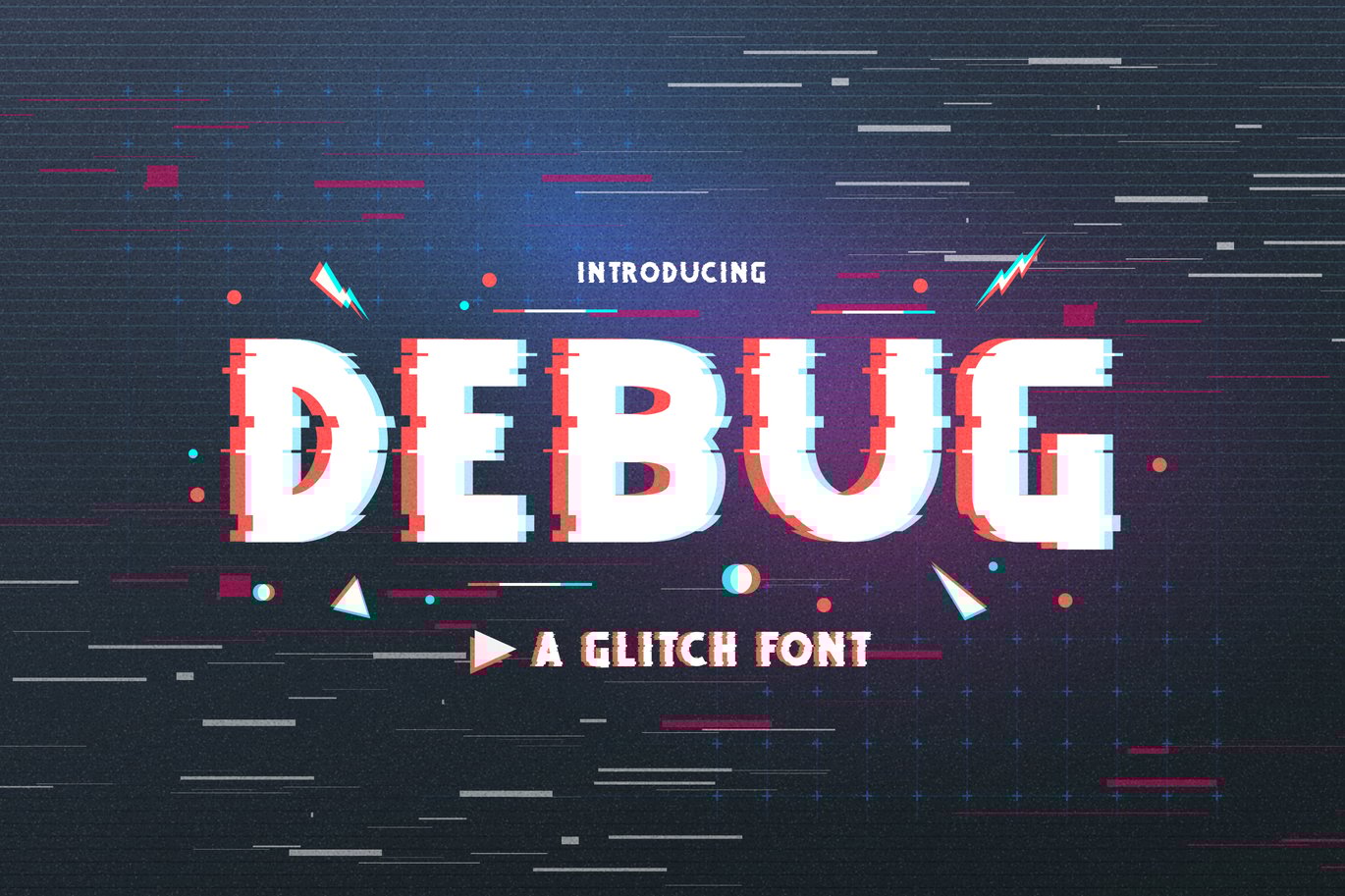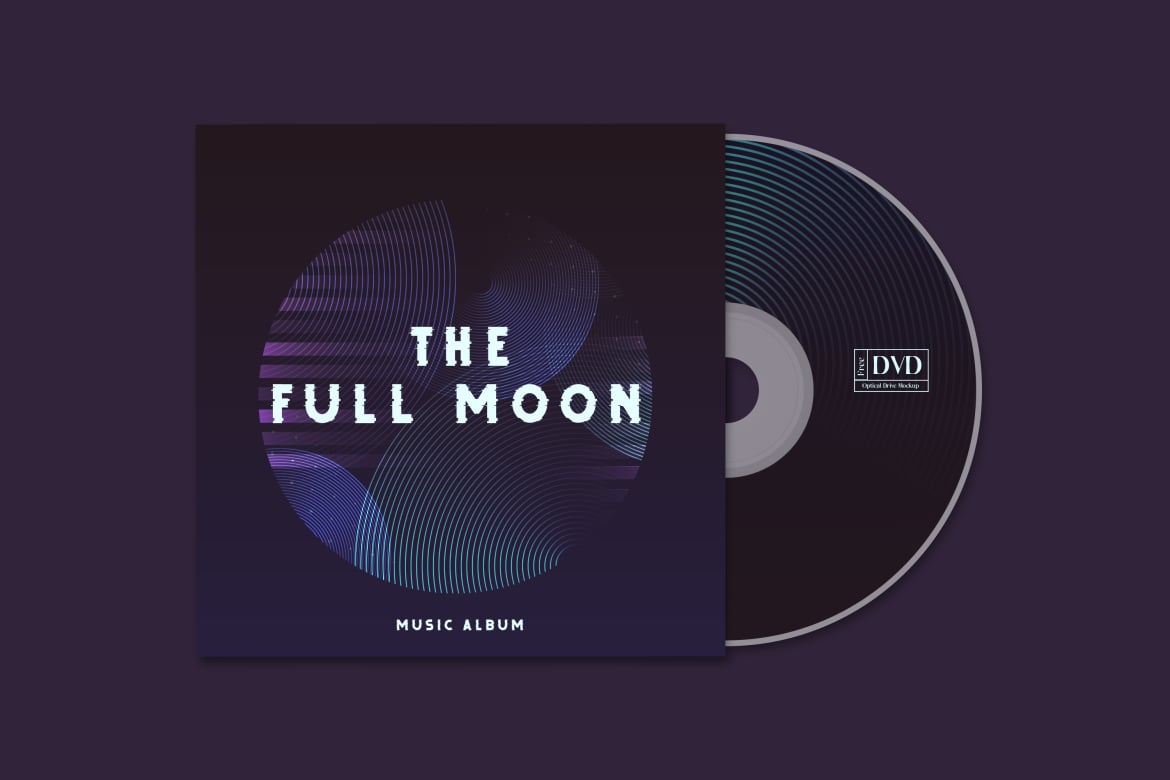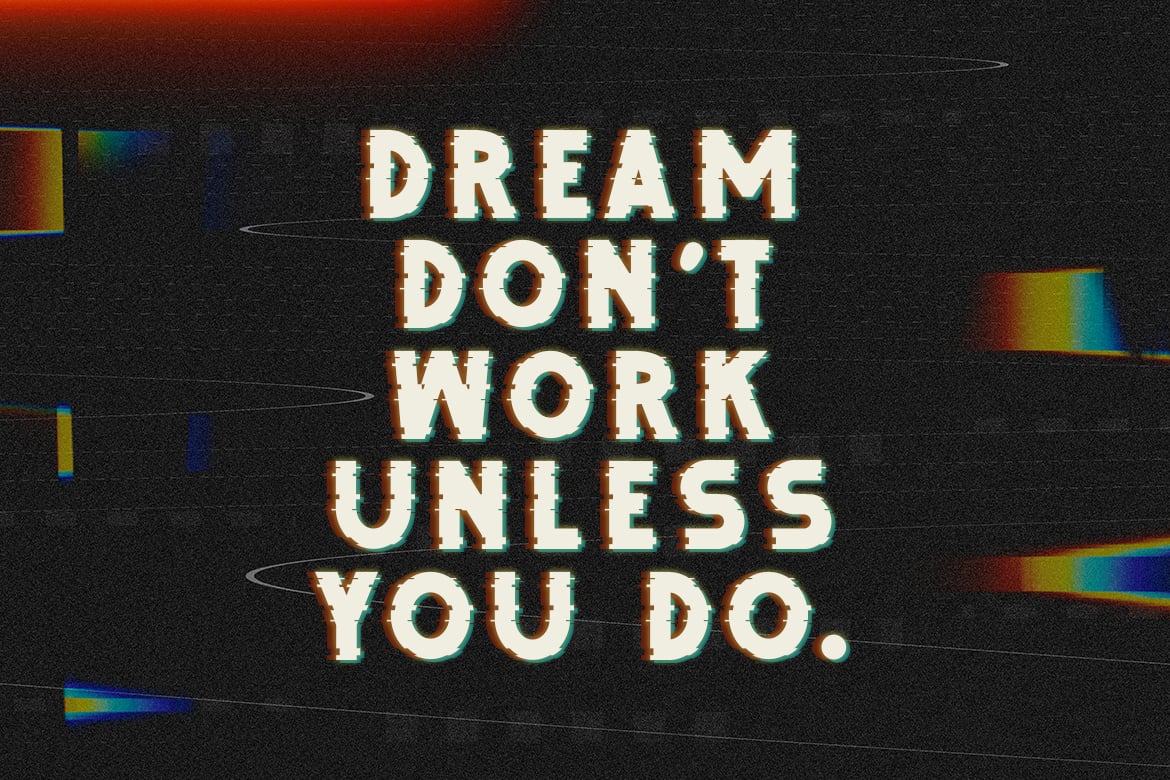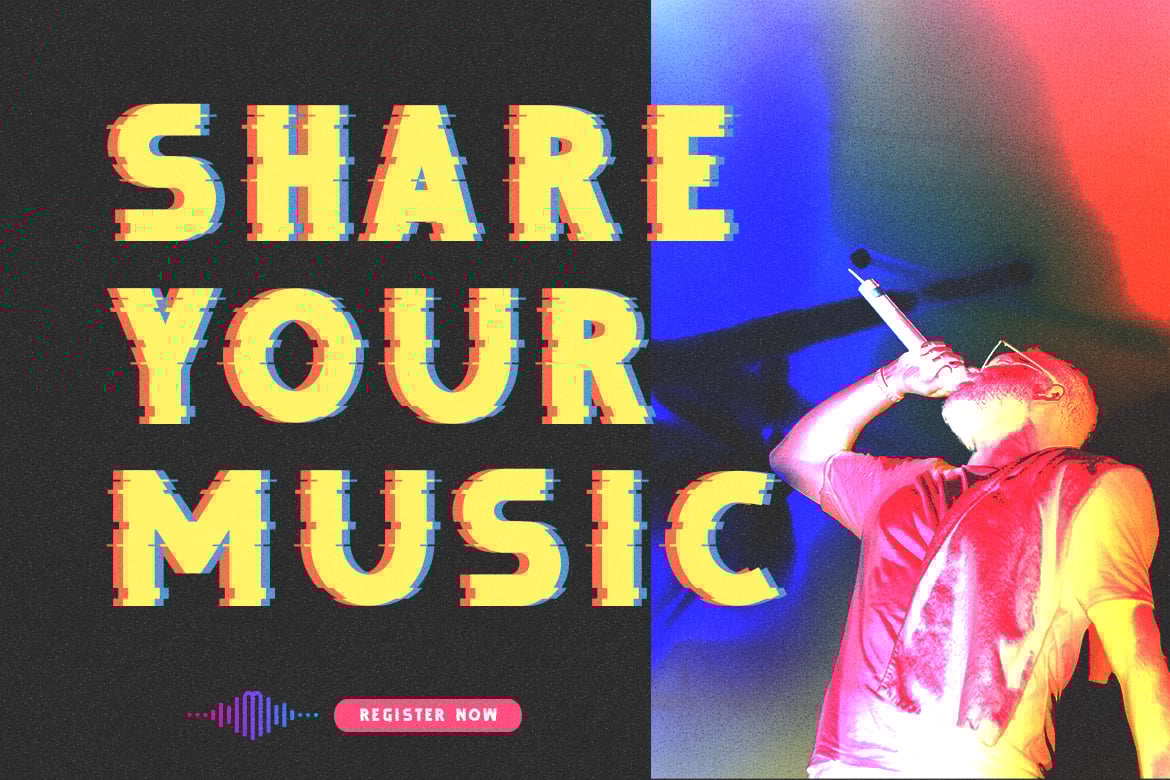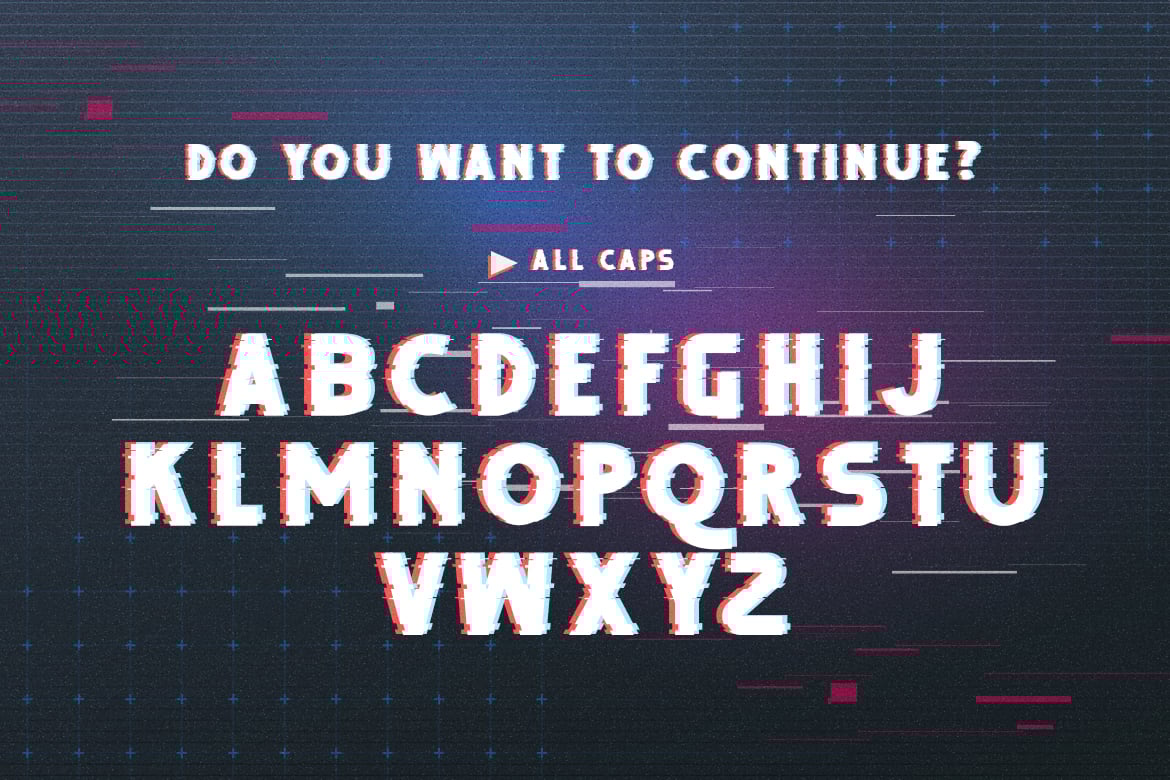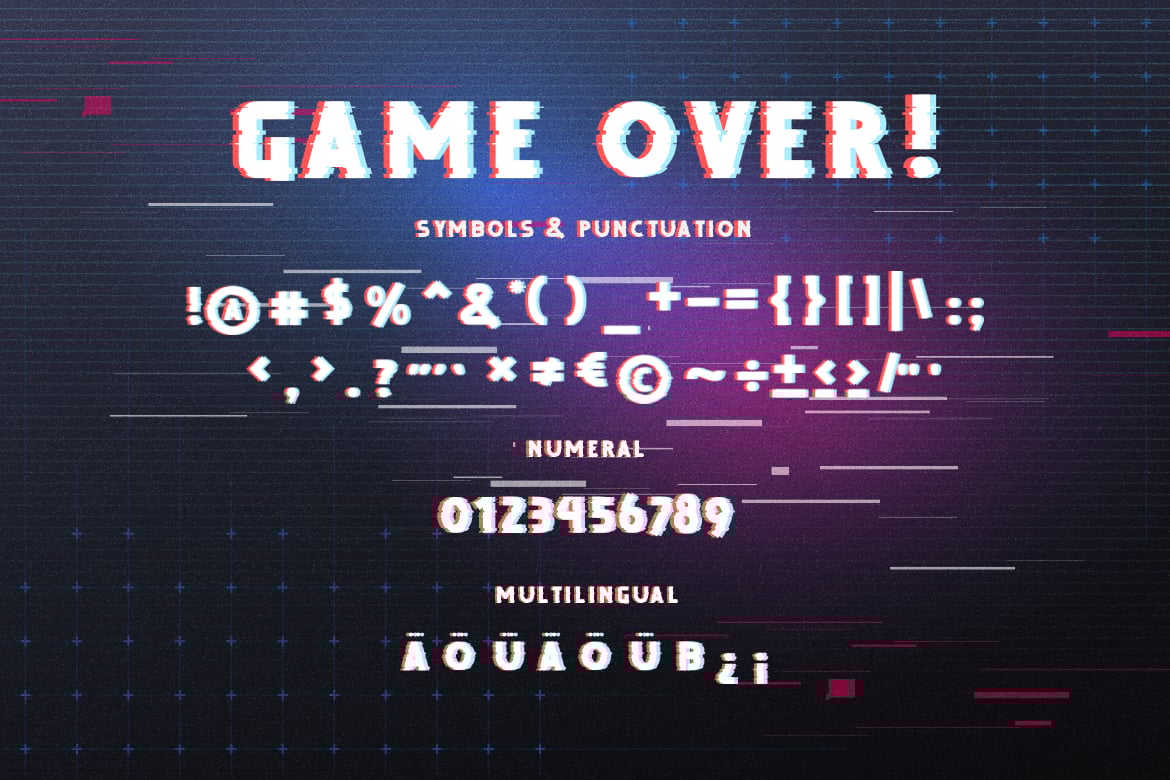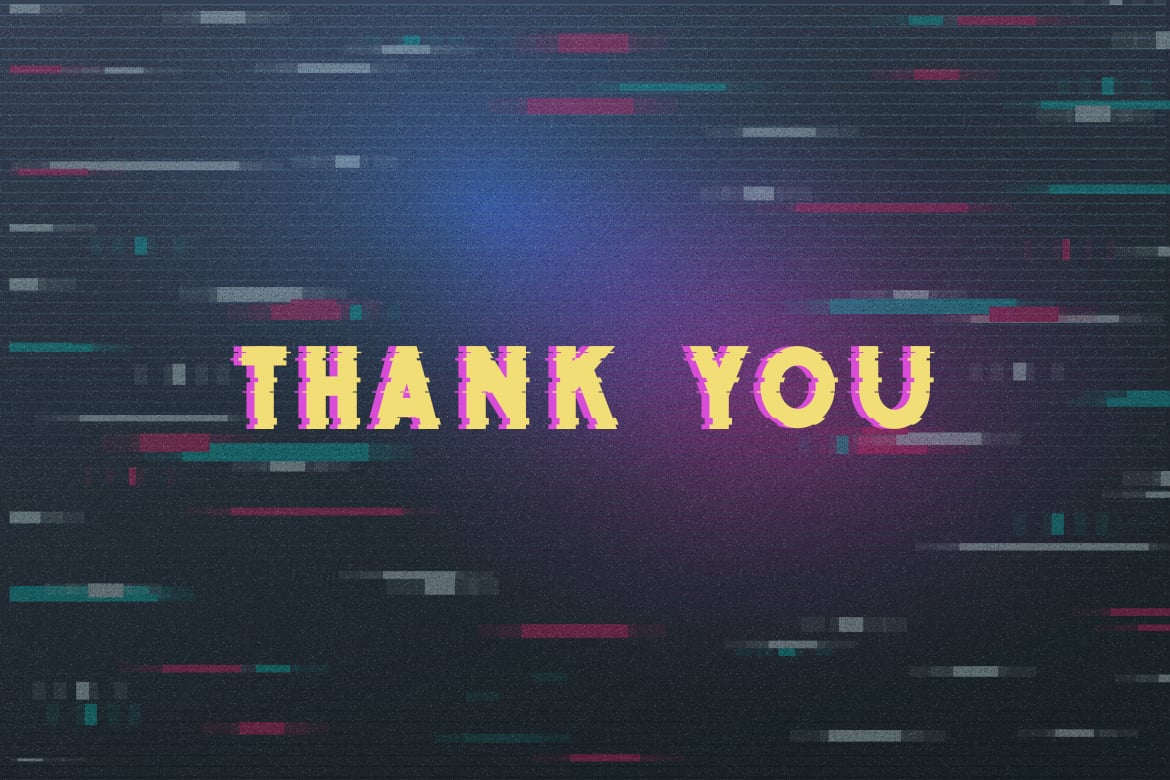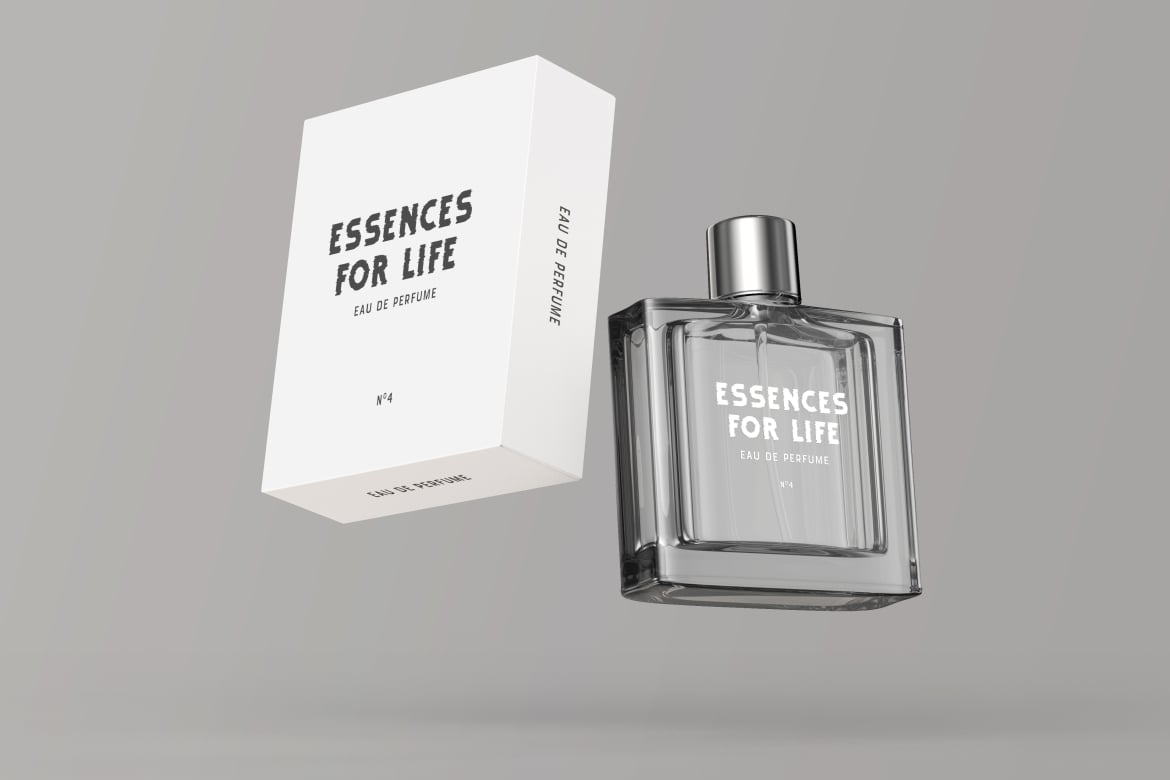
Debug – Uppercase Glitch Font
An eccentric typeface designed to illustrate an artistic and modern digital glitching effect.
Considered to be an old art form that has some black history to its origins, this typeface has been widely used to represent flaws or errors on any digital image through its glitch effects. Its emergence in the art and writing world created a positive effect and gradually buried its past.
Today, it greatly signifies as an icon and a tool for most artists. An all uppercase font that is perfect for your artworks or websites to give it a contemporary ambiance and style.
This font is perfect for impressive branding, games title design or practically anything you can think of!
– All Caps
– Alternates